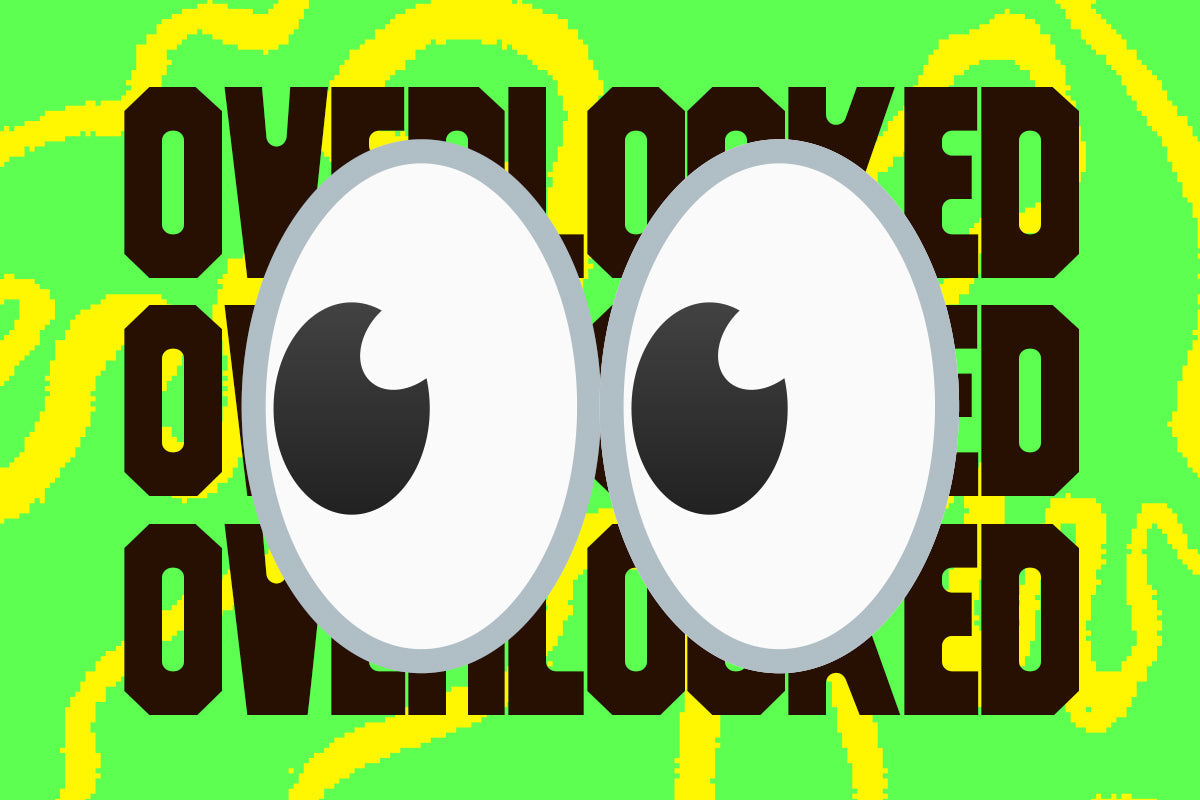
10 Overlooked Font Trends You Should Try in 2025
Explore the top 10 overlooked font trends for 2025 that can revitalise your design projects. From chaotic typography to distorted text effects, discover how these unique styles can make your work stand out and reflect your creativity. Get ready to embrace the unexpected and experiment with fresh ideas!
10 Overlooked Font Trends You Should Try in 2025
As we gear up for 2025, the design landscape is evolving faster than ever. While some trends are on everyone’s lips (think minimalist sans-serifs and subtle pastels) there's a treasure trove of overlooked font trends waiting to be explored. These under-the-radar styles can breathe fresh life into your design projects, making them stand out in a sea of sameness. So, let’s dive into 10 font trends that you absolutely should try in 2025!
1. Chaotic Typography
Gone are the days when typography had to be strictly legible and perfectly aligned. In 2025, chaotic typography is making waves. This trend embraces randomness — fonts that appear as if they’ve been tossed around or skewed can add an element of surprise to your designs. Think of it like visual jazz, where you break the rules to create something spontaneous and exciting. Try mixing different weights and styles in a single layout for that delightful chaos.
Crash TM
Crash by Type Mania
2. Retro Futurism Fonts
The ‘80s and ‘90s aesthetic is back, but with a twist — welcome retro futurism. Imagine bold, neon-infused fonts that evoke the vibes of old sci-fi movies, like "Blade Runner". These fonts often combine elements of vintage design with a modern edge, making them perfect for anything from album covers to tech branding.
TF48 Typeface
TF48 Typeface by HVNTER
3. Grunge Revival Text
Grunge fonts are making a comeback, reviving the raw energy of the ‘90s punk scene. These fonts often feature distressed textures, uneven edges, and a bit of a rebellious spirit. They’re perfect for personal projects or anything that needs a gritty, underground feel. Think of how they can transform music posters or fashion graphics into something unforgettable.
Oddball TM
Oddball TM by Type Mania
4. Oversized Serifs
While serifs have always been a staple, oversized versions are becoming a bold statement. Imagine grand, sweeping serifs that demand attention. These fonts are not just for headers — they can work wonders in body text, too, breaking the mold of traditional typography rules.
Negkomis - Ligature Serif Mixed with Experimental Script
5. Handwritten Fonts with a Twist
Handwritten fonts are nothing new, but in 2025, we’re seeing more experimentation with them. Think about how artists are playing with imperfection and personality. These fonts can range from elegant scripts to more playful, doodle-like styles. They add a personal touch that resonates with audiences looking for authenticity.
Loser TM
Loser by Type Mania
6. 3D Typography
As technology advances, so does our ability to create more immersive designs. 3D typography allows you to add depth and dimension to your text, making it leap off the screen or page. This trend is particularly effective in digital formats, where movement and interaction can enhance the experience.
Neo 3D Postmodern Elements 2
Neo 3D Postmodern Elements 2 by angelainthefields
7. Experimental Typefaces
In 2025, designers are encouraged to break free from convention and embrace experimental typefaces. These are fonts that challenge the norms — think unconventional shapes, unexpected connections, or even kinetic typography that changes as you interact with it. This style invites viewers to engage with the text, creating a memorable experience.